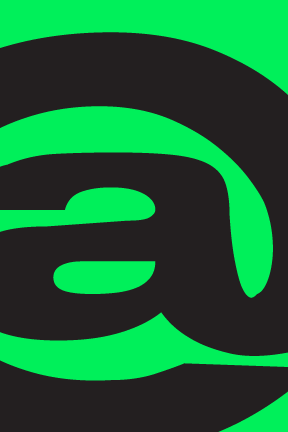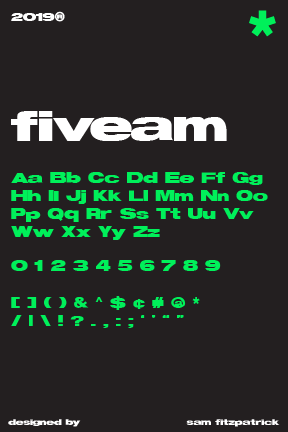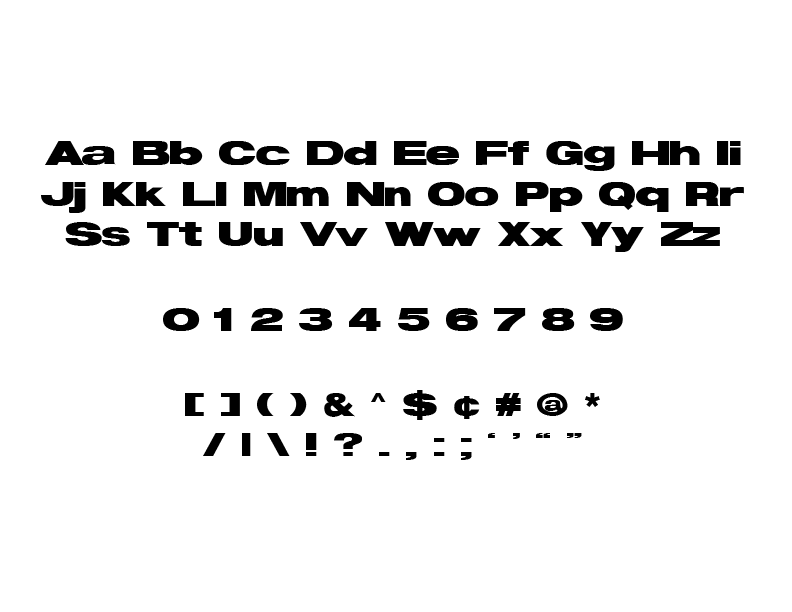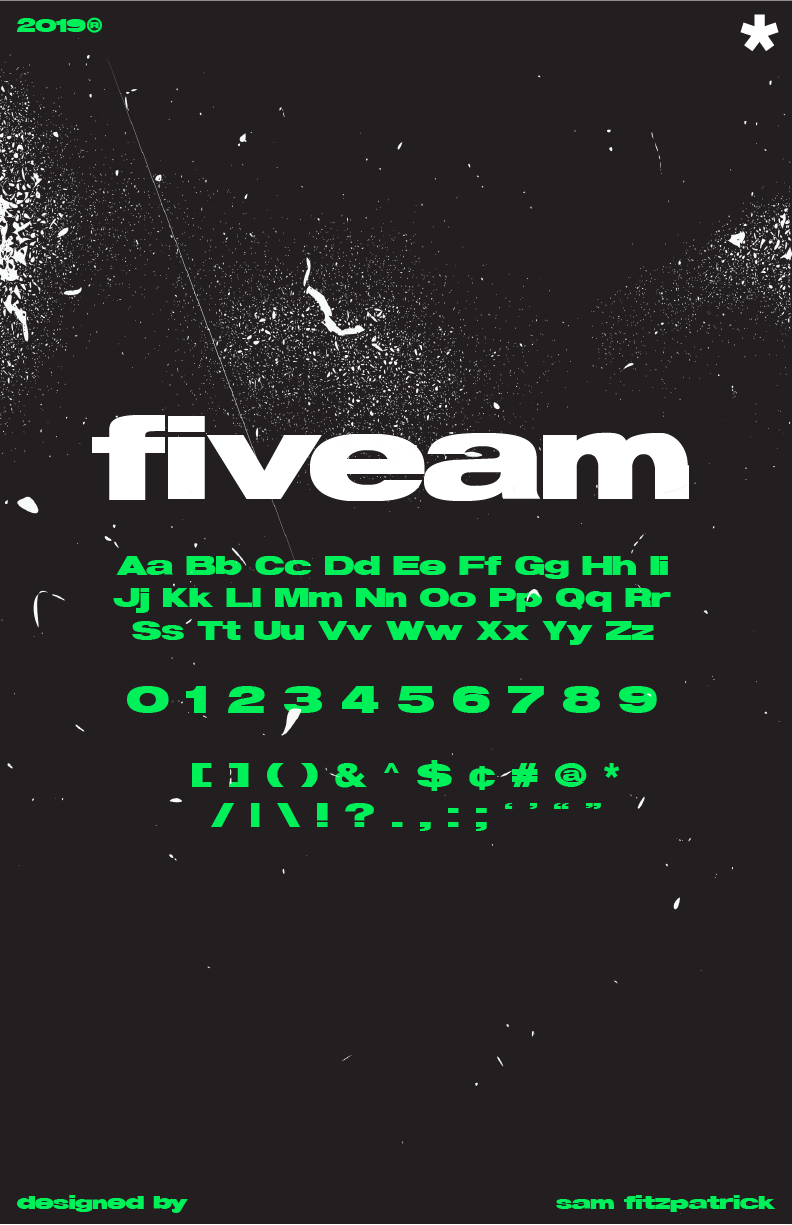
For my Experimental Typography class I was assigned a project to create our own font. I chose to create a thick, bold, san-serif font. Pictured to the right is a type specimen poster, along with below a double sided type specimen note card showcasing “FIVEAM”.
FIVEAM Font